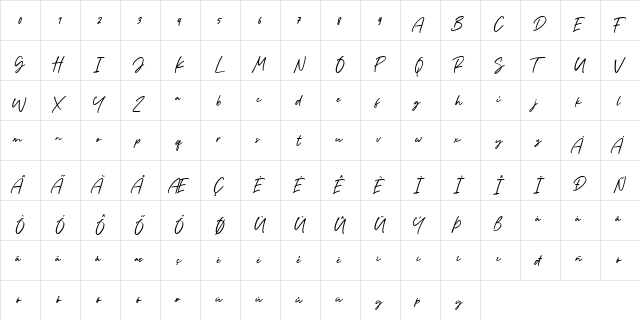
The Plumber Regular
Design Context for The Plumber Typeface
The Plumber is a composed and adaptable typeface that performs quietly and consistently across a wide range of design contexts.